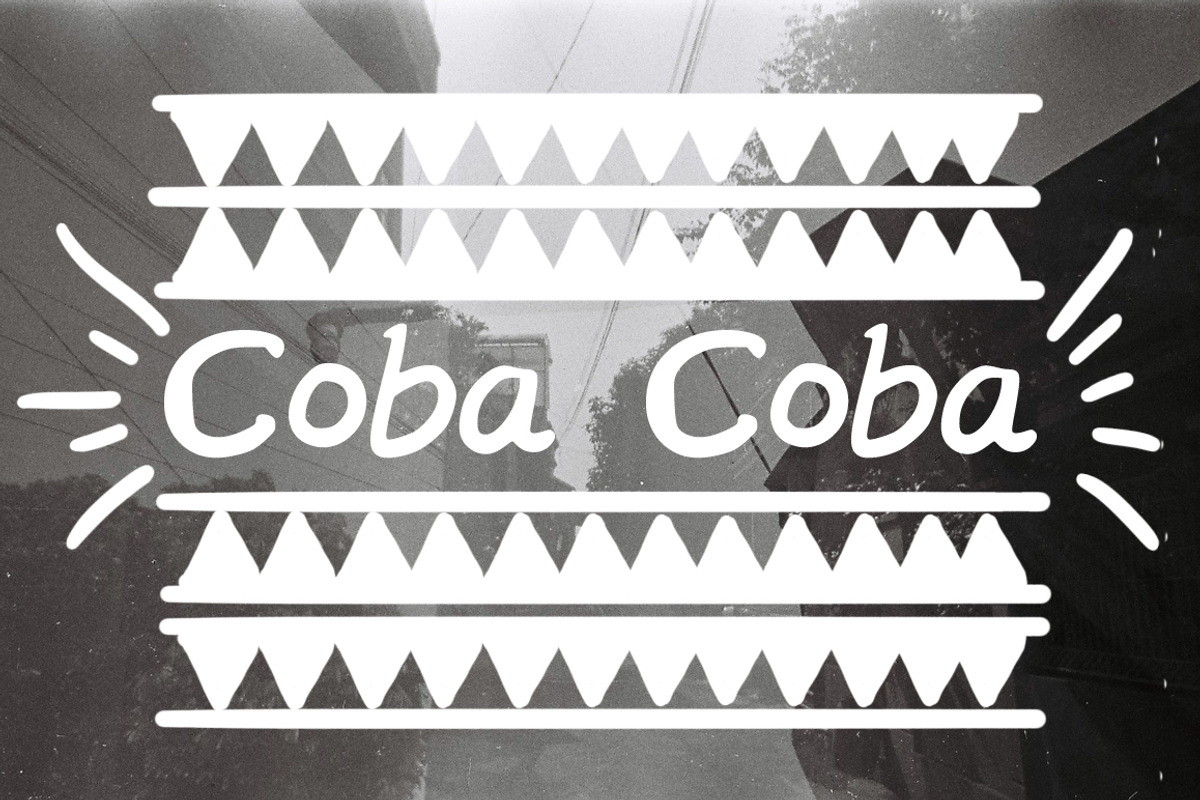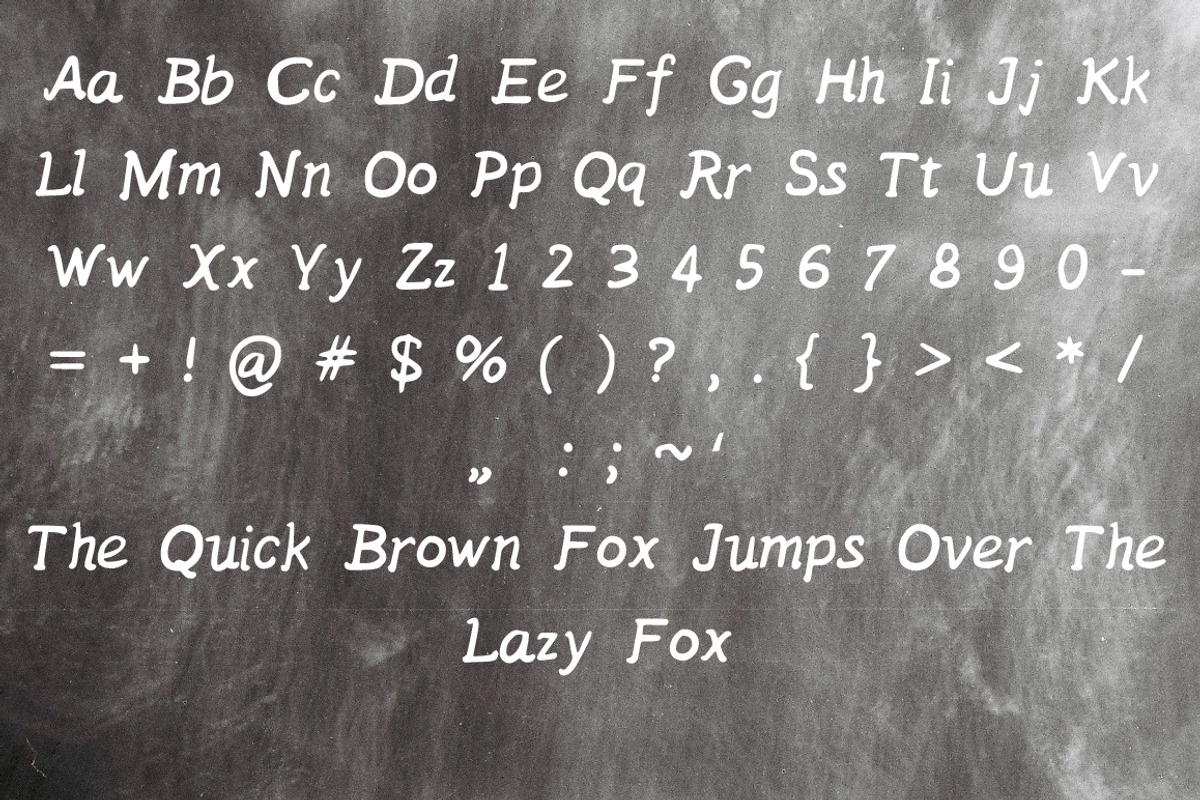
Coba Coba Handwritten Font
Coba Coba Handwritten Font by PaperCup is a font selected for branding, posters, packaging, typography.
Why Coba Coba Handwritten Font is worth a look
Coba Coba Handwritten Font by PaperCup fits naturally into Branding, posters, packaging, typography.